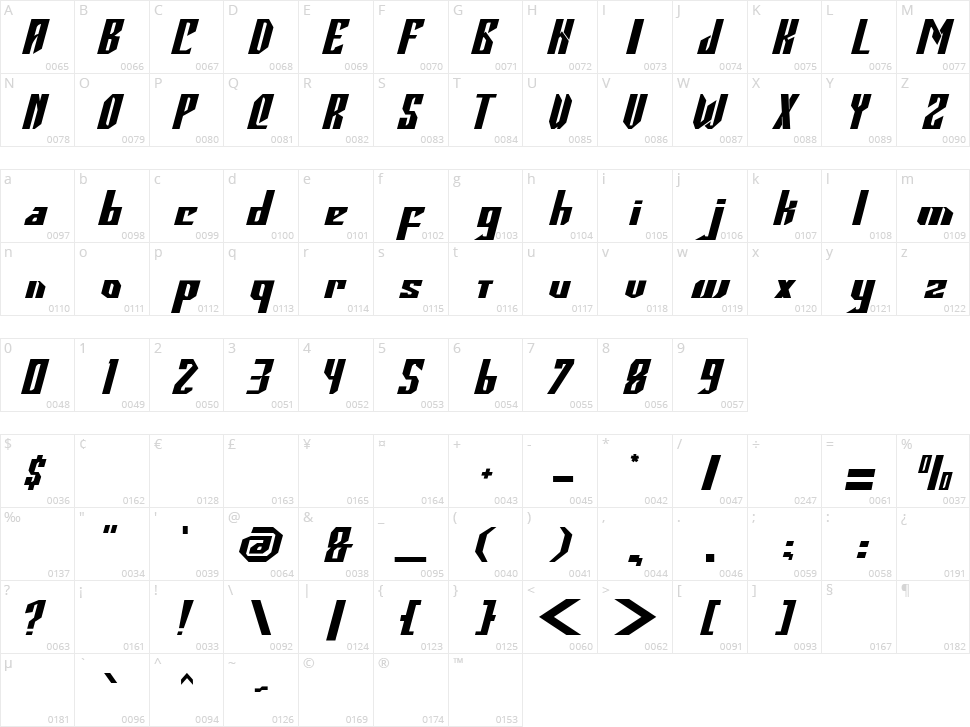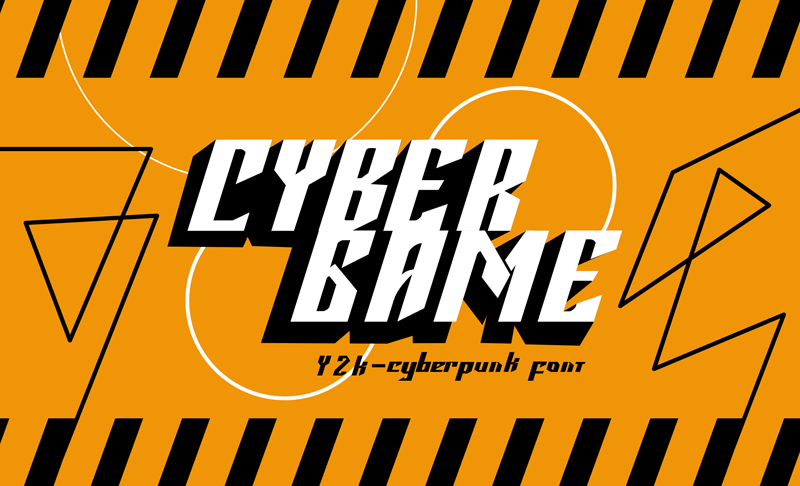
Cybergame
Note of the author Cybergame is a futuristic style featuring shameless, fearless, and unique glyphs. Due to its unicity, this font will offer your project ideas an unimaginable touch.